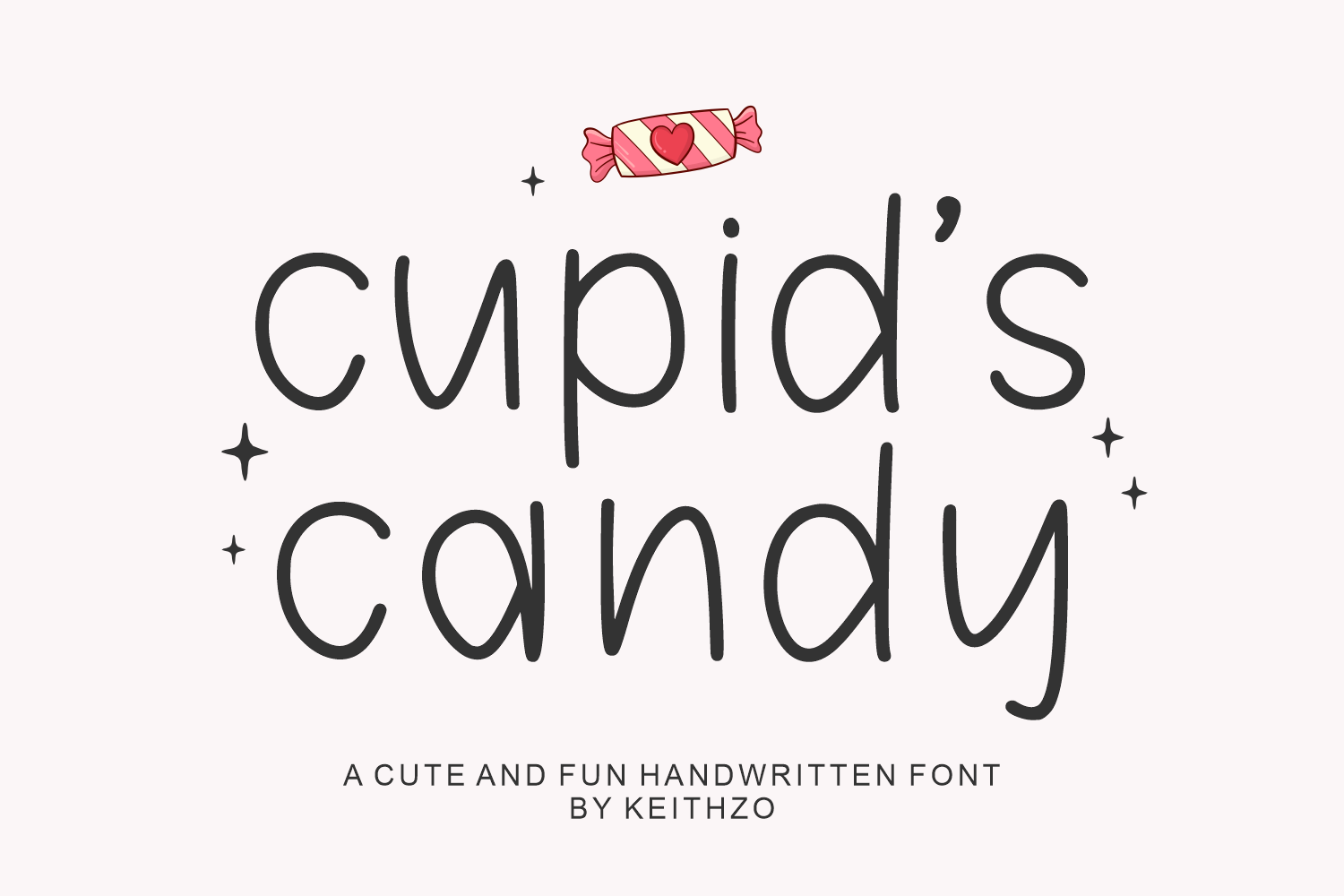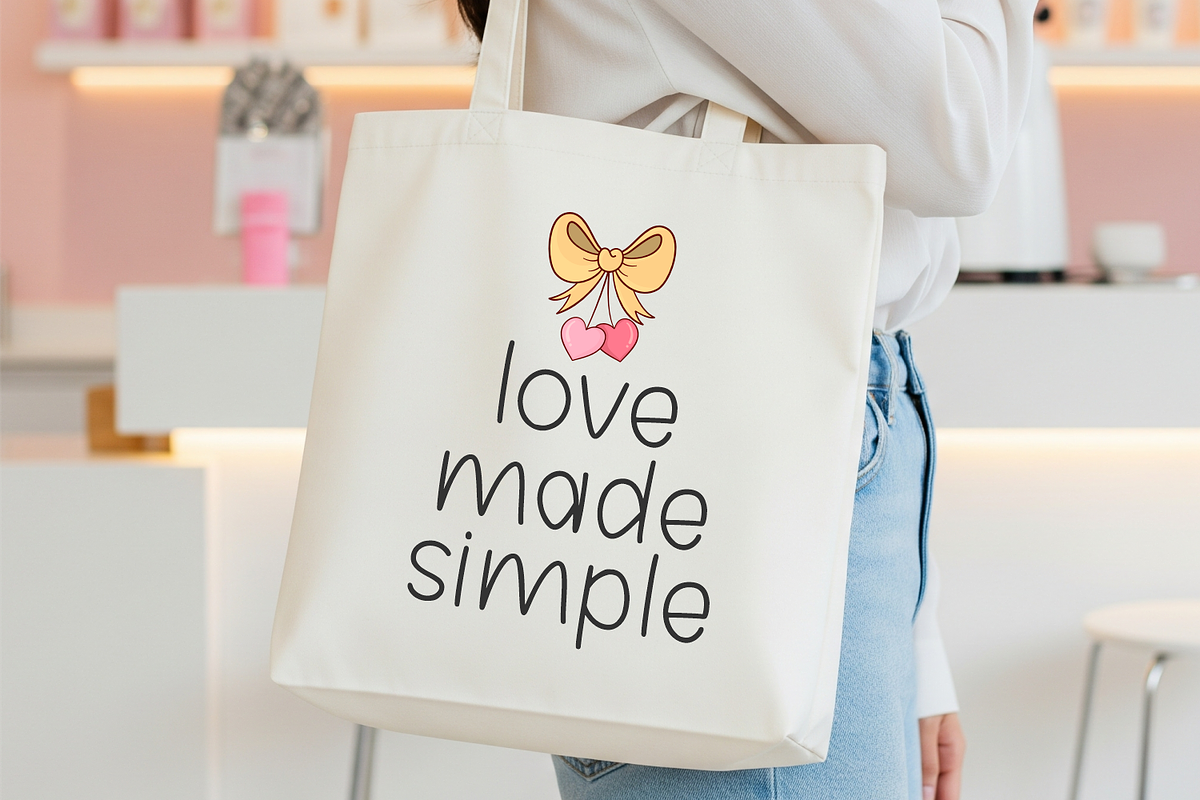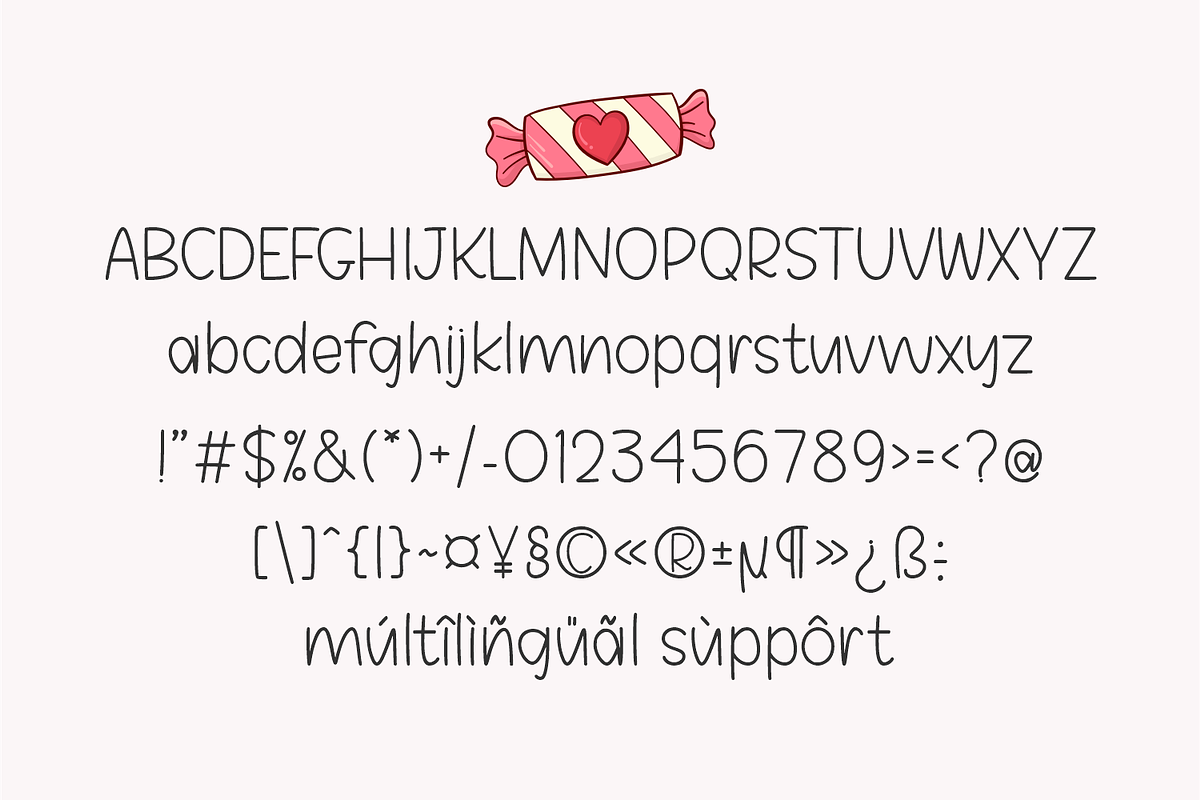
Cupid's Candy - Valentine's Font
Discover the enchanting allure of Cupid’s Candy, an irresistibly playful and heartwarming handwritten font that resonates with love and joy. Dressed in soft, welcoming contours and boasting a fun rhythmic flow, this typeface is a veritable confection of creativity for your projects.
Drawing its name from the symbol of love, Cupid’s Candy irresistibly enhances all things linked to Valentine’s Day. Its warm, legible style offers a charming touch to love-themed clothing, greeting cards, sentimental notes, and more.
Not just limited to romance, this typeface excels in fostering a jovial mood perfect for children’s activities, enlightening classroom resources, whimsical children’s literature, and family-centric merchandise.
Embodying the essence of affectionate sweetness, it’s the perfect choice for design projects requiring a warm, delightful, and amorous appeal. From totes carrying sweet words of love, to mug designs and bespoke gifts, Cupid’s Candy infuses a dash of romance and sweetness into your designs, making them truly stand out.